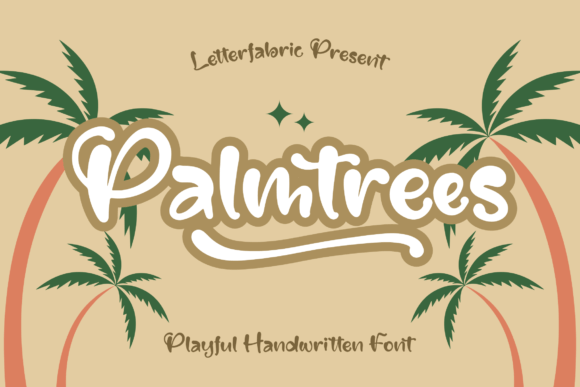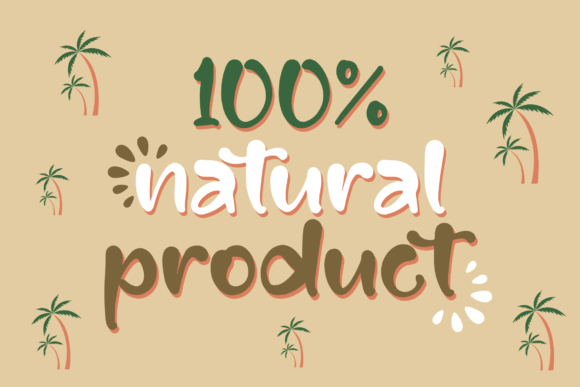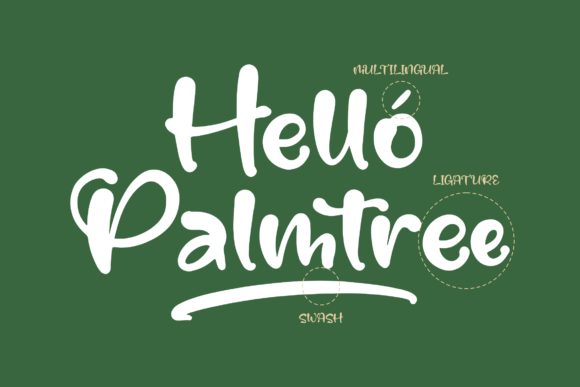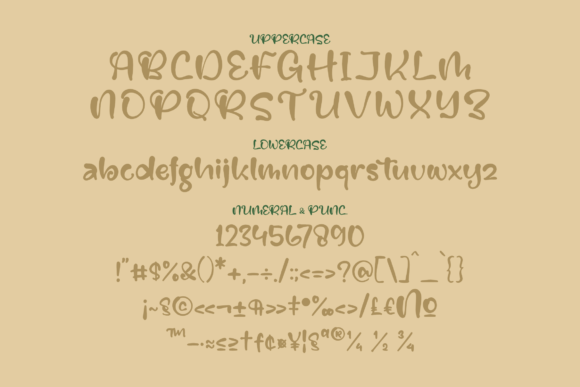
About Palmtrees Font
Palmtrees is a delightful handwritten font that brings a playful and charming touch to a wide range of design projects. With its versatility, it becomes a suitable choice for logos, branding projects, homeware designs, product packaging, mugs, quotes, posters, shopping bags, T-shirts, book covers, name cards, invitation cards, greeting cards, labels, photography, watermarks, special events, and any other projects that require a beautiful and whimsical aesthetic.
The charm of Palmtrees lies in its carefully crafted letterforms, creating a visual language that is both playful and approachable. The handwritten style adds a personal and authentic feel, making it well-suited for projects that seek to convey a sense of creativity and fun.
In branding, Palmtrees contributes to a lively and engaging brand identity. Its playful nature ensures that it can adapt to different industries and themes, maintaining a consistent and cheerful visual tone.
For various print and digital materials, including posters, T-shirts, and book covers, Palmtrees brings a sense of whimsy and charm. The font’s ability to convey playfulness makes it suitable for projects that want to stand out with a touch of creativity.
Whether you’re designing greeting cards, labels, or adding watermarks to your photography, Palmtrees becomes a versatile tool that enhances the overall aesthetic. Its handwritten style adds a layer of personality and uniqueness to your lovely projects.
In summary, Palmtrees is more than just a font; it’s a design asset that brings a playful and charming quality to a variety of creative projects. Whether you’re working on branding, print materials, or special events, Palmtrees is ready to add a touch of whimsy and creativity to your designs.